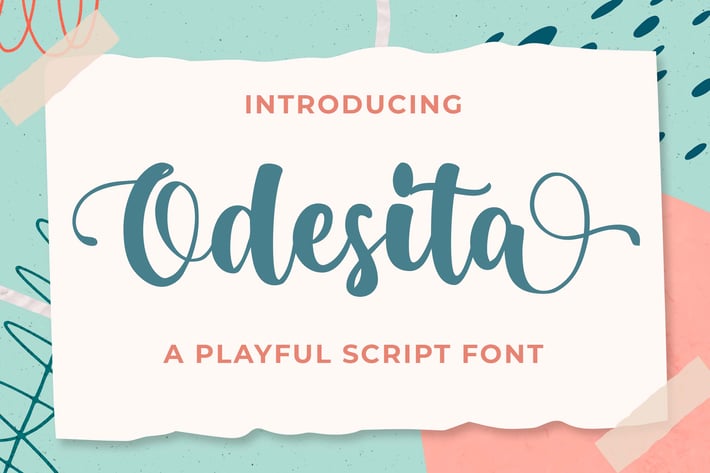
Odesita a Playful Business Script Font
Introducing of our new product the name is Odesita a Playful Business Script Font, Odesita inspired by Bouncy Calligraphy style with a fun theme very good for Logotype, kids poster, flyer, childrenbook, cartoon, comic etc